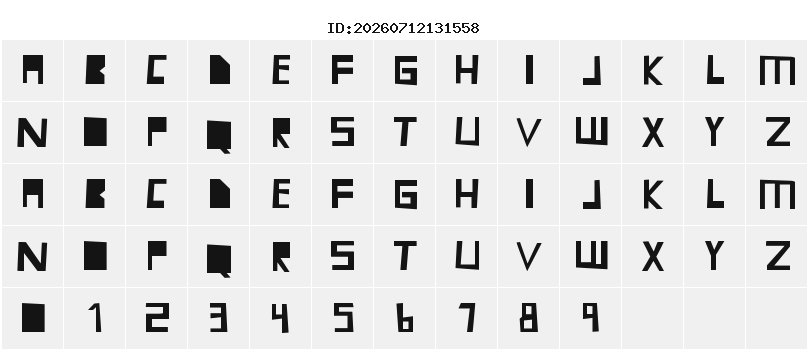
About MARI.ttf
MARI.ttf is a modern, elegant sans-serif font designed for ultimate readability and visual harmony. Perfect for branding, headlines, web design, and print materials.